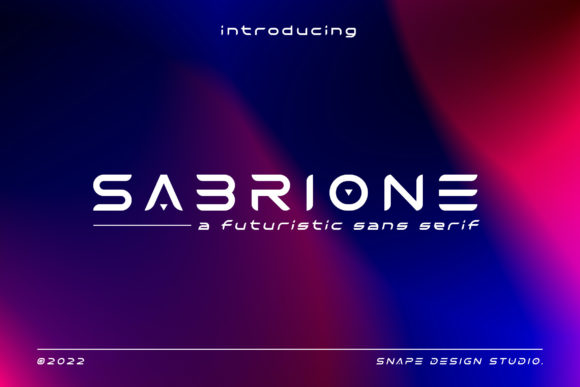
In the realm of digital artistry, typography reigns supreme, dictating the visual symphony of words and ideas. Among the myriad fonts that grace the cyber landscape, Sabrione Font emerges as a radiant star, a testament to the boundless creativity of the digital age. With its sleek, modernistic design, Sabrione invites you to embark on a journey into the future, where technology, innovation, and boundless imagination collide.
Conceived by the visionary minds at snapedsgn, Sabrione belongs to the esteemed sans-serif family, renowned for its clean lines, unadorned elegance, and unwavering legibility. Each meticulously crafted glyph exudes a sense of precision and purpose, embodying the spirit of progress and propelling your designs to new heights.
Whether you're a seasoned graphic designer navigating the ever-evolving digital landscape or a passionate artist seeking to leave an indelible mark on the world, Sabrione Font is your steadfast companion. Its inherent versatility and boundless potential make it the ideal choice for a multitude of creative endeavors. Unleash your imagination and harness the power of Sabrione to transform your projects into captivating masterpieces.
Immerse yourself in the world of technology, where Sabrione Font seamlessly blends with the sleek lines and futuristic aesthetics of digital creations. Its sharp angles and crisp edges evoke a sense of innovation and progress, perfectly complementing websites, app designs, and digital marketing materials. Embark on a cosmic odyssey with Sabrione, letting its interstellar charm illuminate your space-themed designs, posters, and book covers.
Delve into the world of cinema and storytelling, where Sabrione Font lends its dramatic flair to movie titles, documentaries, and film credits. Its bold presence commands attention, captivating audiences and setting the stage for an unforgettable cinematic experience. Let Sabrione be your muse as you craft logos that leave a lasting impression, encapsulating the essence of your brand and resonating with your target audience.
Sabrione Font's versatility extends beyond the digital realm, finding its place in the tangible world of print and design. Its clean lines and elegant simplicity make it the perfect choice for posters, flyers, and brochures, delivering your message with clarity and impact. Create eye-catching headlines and titles that demand attention, leaving an indelible mark on the minds of your readers. Unleash your creativity with Sabrione and witness the transformation of your designs into works of art.
Join the ranks of creative visionaries who have harnessed the power of Sabrione Font to elevate their projects to new heights. Step into the future with Sabrione, the font that embodies innovation, progress, and boundless imagination. Let it ignite your creativity and guide you on an artistic journey like no other. Embrace the limitless possibilities of Sabrione Font and let your designs shine brighter than ever before!